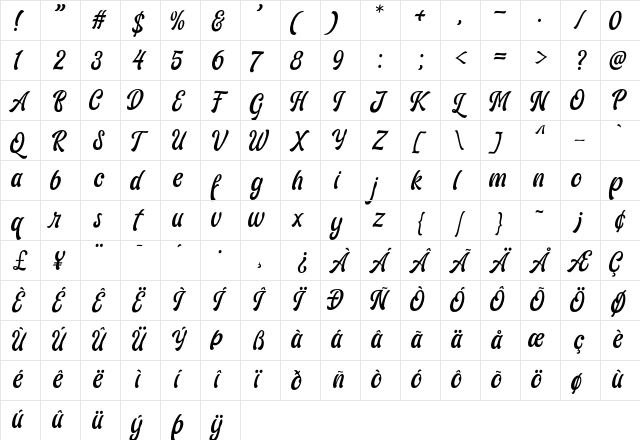
Ariestha Script Regular
| Foundry | Arterfak Project |
| Designer | Ahmad Ramzi Fahruddin |
Design Context for Ariestha Script Typeface
Ariestha Script flows with the natural rhythm of handwritten lettering, making it ideal for designs that call for warmth and personal expression.